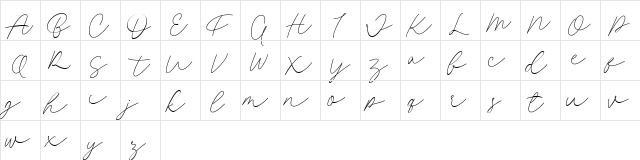
Fillia Script FREE Regular
Design Context for Fillia Script FREE Typeface
Fillia Script FREE brings a calligraphic fluidity to the page — its connecting strokes and expressive curves give it an unmistakably human quality.
Font Pairing: Combine Fillia Script FREE with a simple geometric sans for maximum contrast — the tension between flowing curves and clean structure is a classic typographic pairing.
Pro Tip: Pair Fillia Script FREE with a clean sans-serif for supporting text. The contrast between fluid script and geometric structure creates an elegant typographic hierarchy.